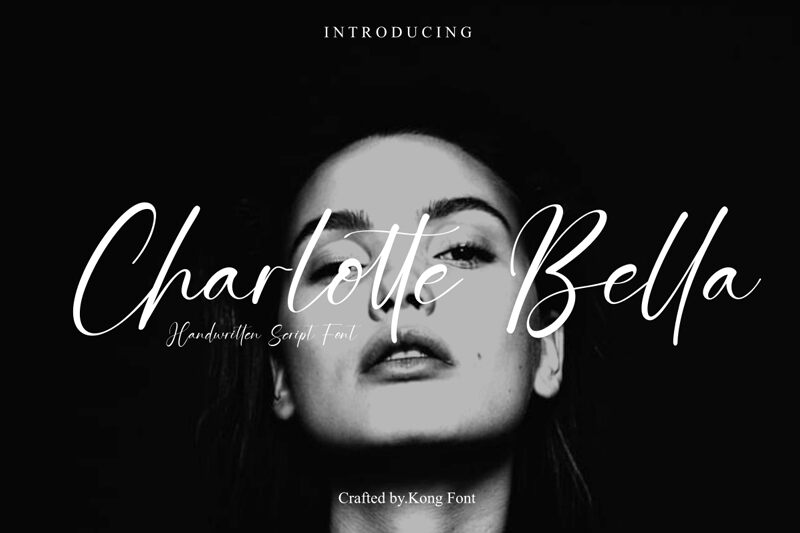
Charlotte Bella font family from Kong Font comes with 2 font styles that are both handwritten and beautiful. The number of handwritten fonts out there doesn’t stop designers from drawing more of this amazing category and releasing them everywhere. And that’s understandable because, just like handwritings, handwritten typefaces are unique, and each one has an audience that connects to it better than the others.
Unlock your artistic imagination with this two-member family with its identical cursive, neat hand-drawn letterforms. It would look lovely on invitations as print or digital, thank-you cards, or logos. It would also look beautiful on wedding invitations and titles, businesses that are run by women, and other projects that need some romantic touch.